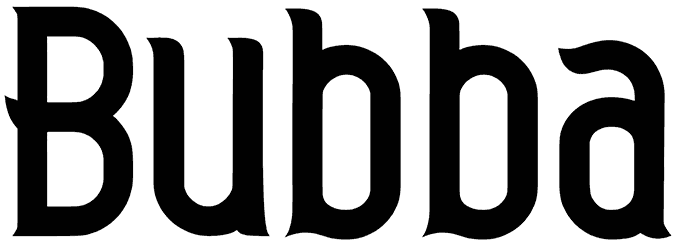
Bubba Font
If you are wondering how your design will be with modern and distinct words, this gothic font can be interesting for you. Bubba’s unique adorned letters have the potential to be matched with many layouts. From formal to informal projects, this condensed font can add an elegant visual and amp up the final draft.